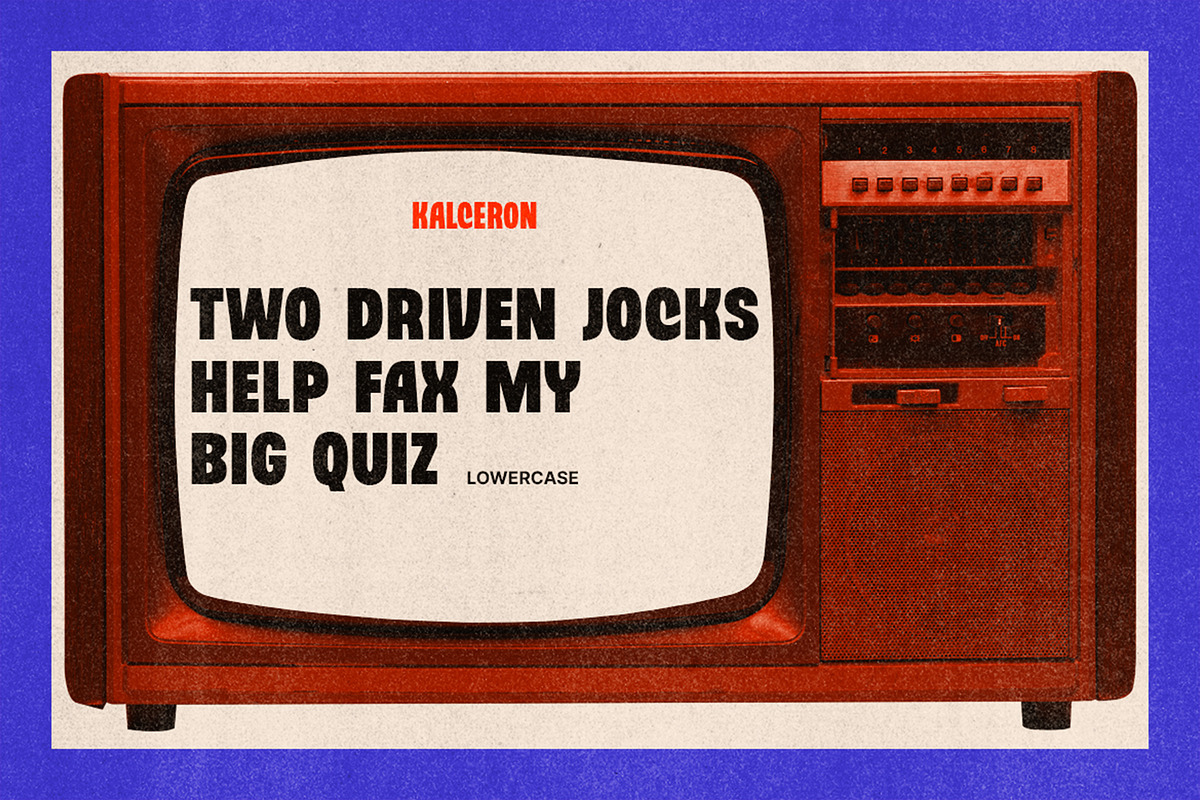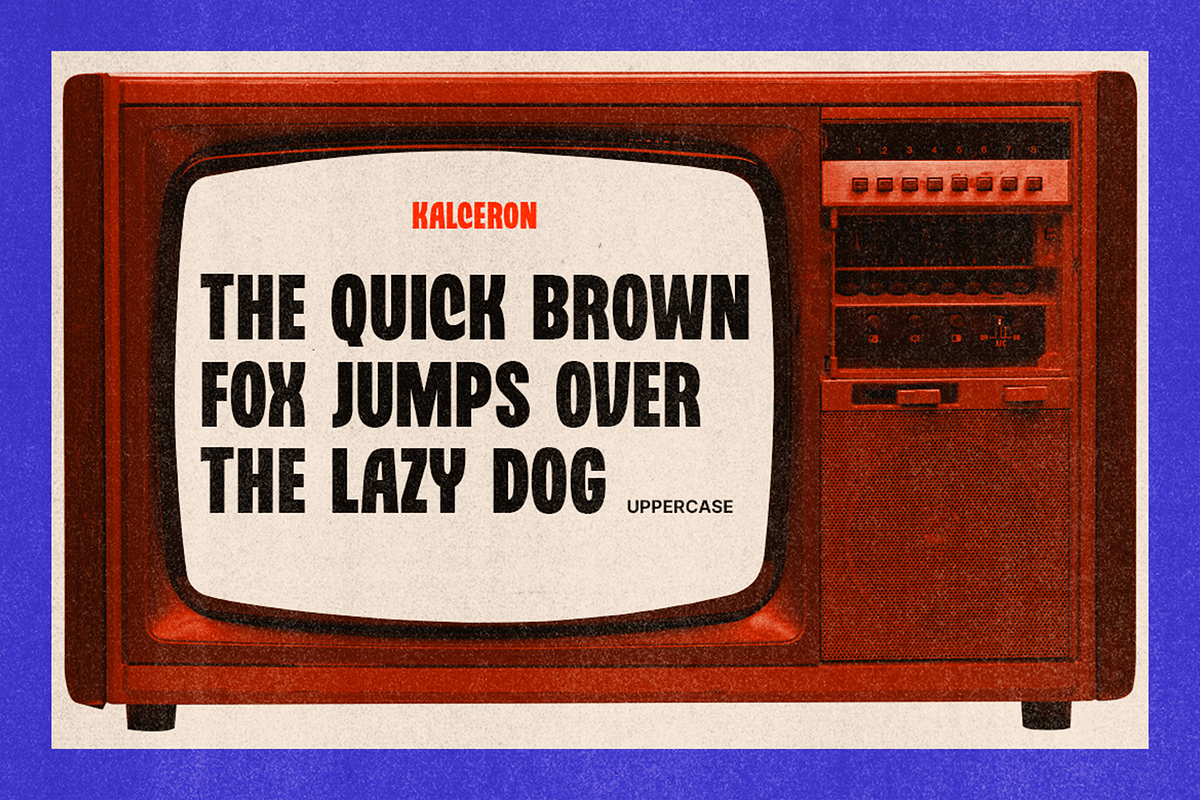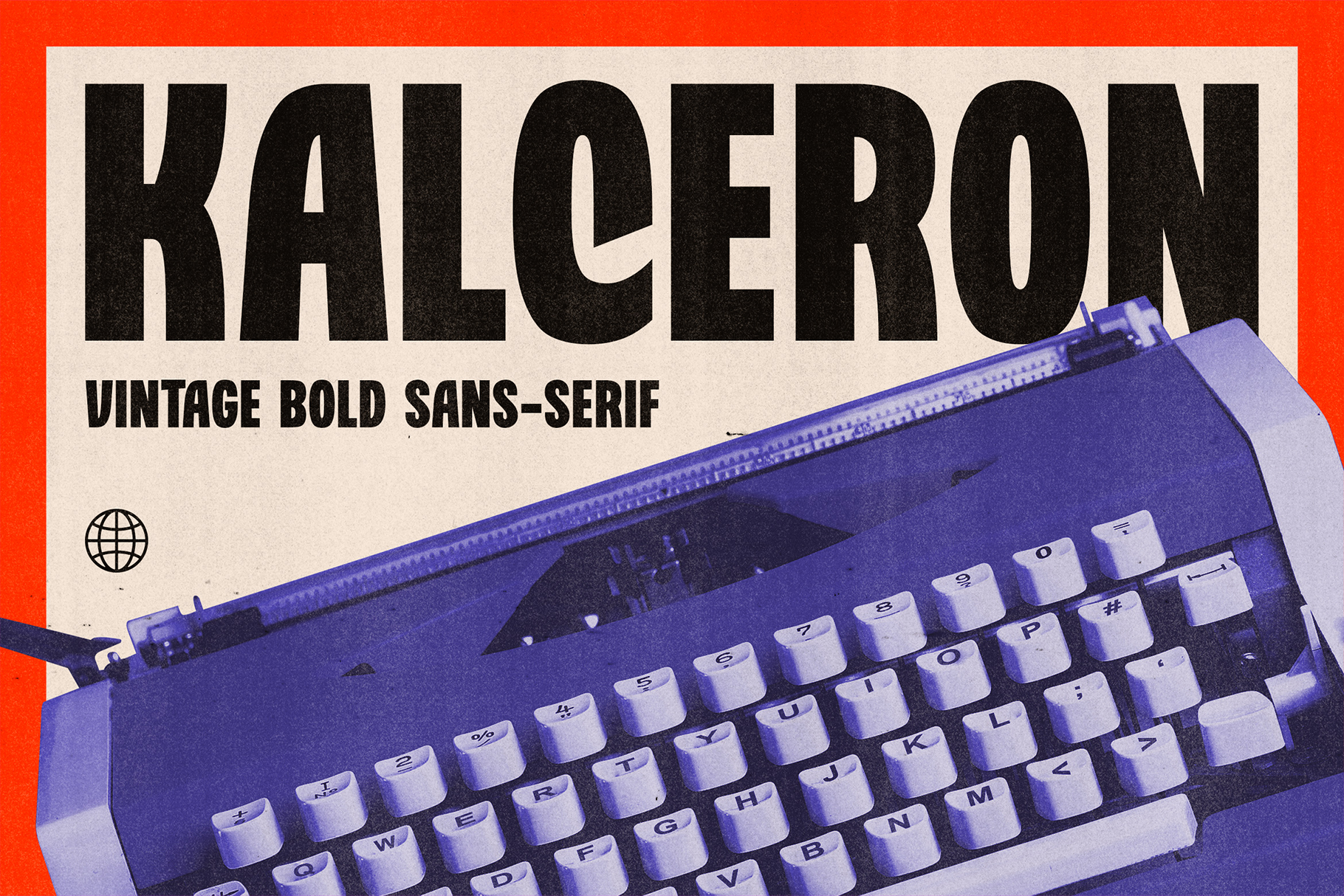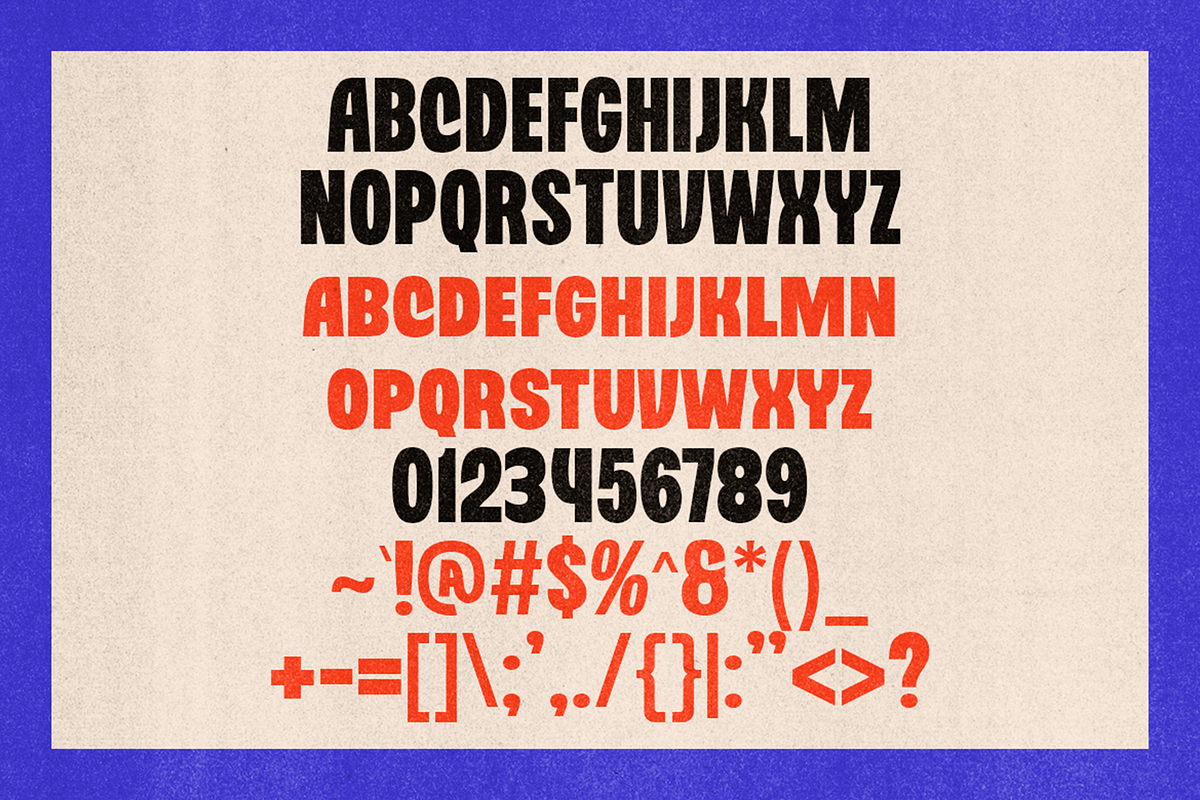
Kalceron - Vintage Bold Fonts
Kalceron is inspired by vintage store signs, posters, and movie titles back in the 70s and 80s era. A retro look with pop colors is always multiple times louder with the bold sans serif fonts.
Perfectly fit for a logo, branding, signage, decor, books, cover, badges and emblems, clothing, apparel, merchandise, movie title, serials, and many more.